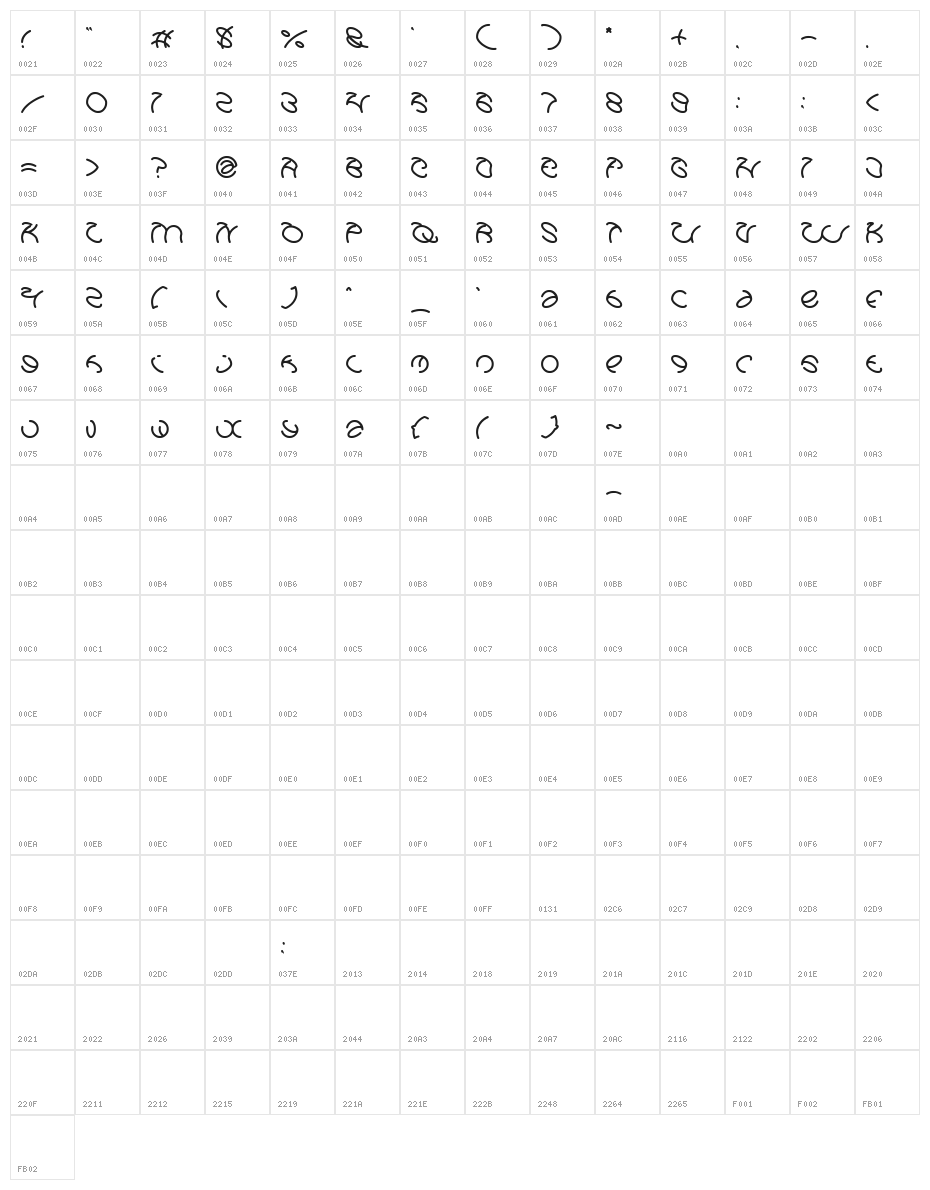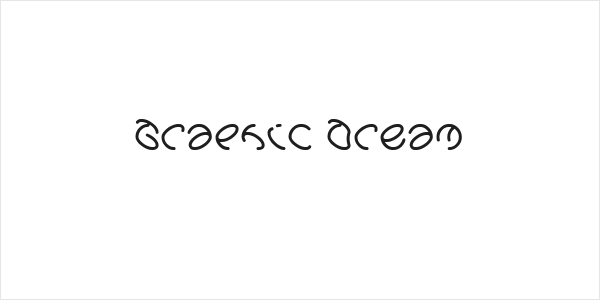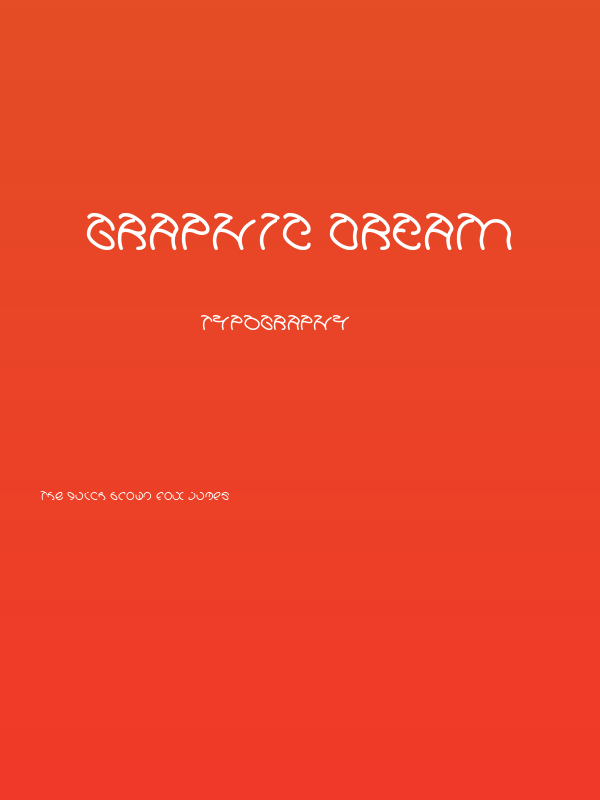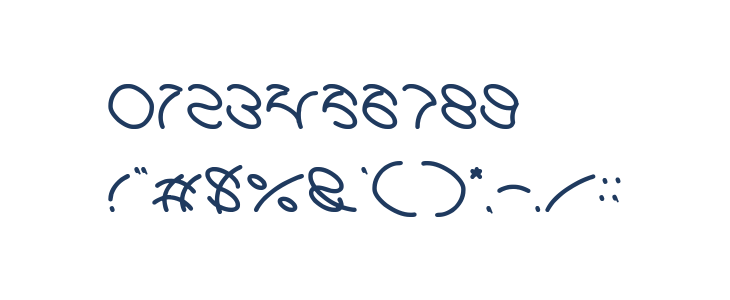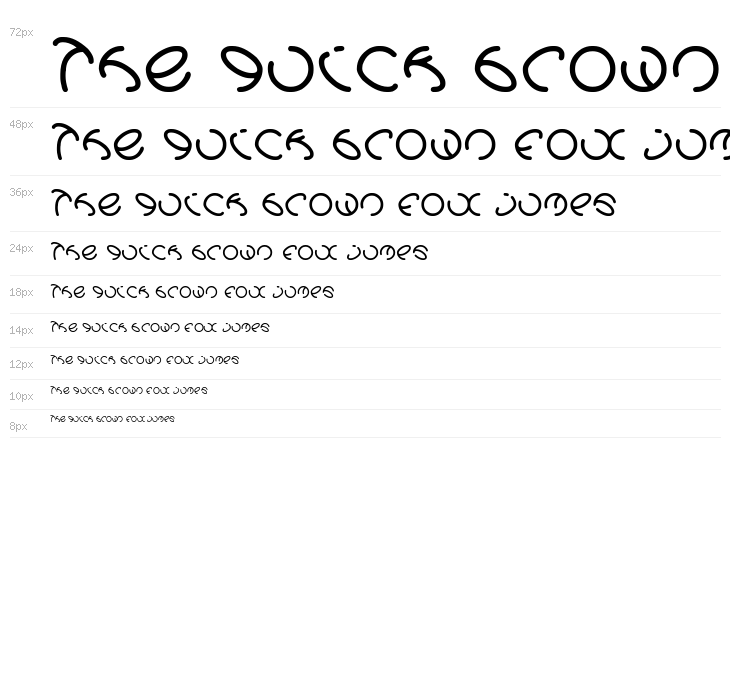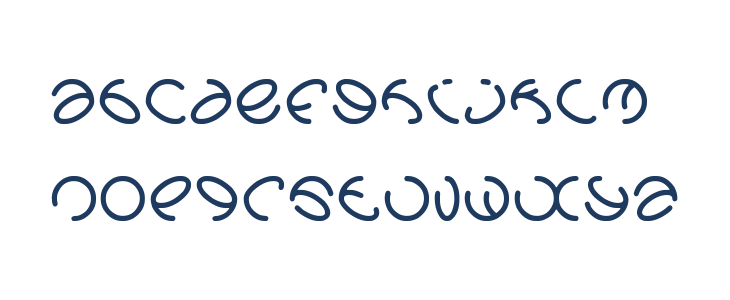
Graphic Dream Font
Graphic Dream Description
This font features a unique and artistic design, characterized by its flowing, curved lines and playful, abstract shapes. Each character is crafted with a sense of movement, giving the font a dynamic and whimsical appearance. The strokes are bold and consistent, creating a strong visual impact while maintaining a sense of elegance. The font's distinctive style makes it stand out, with each letterform exhibiting a creative twist that adds to its charm. The numbers and special characters follow the same design principles, ensuring a cohesive look across all elements. This font is ideal for projects that require a touch of creativity and individuality.
| Overall Style | Artistic |
| Use Case | Logos, Posters, Creative Branding |
| Proposed Projects | Ideal for creative projects such as posters, branding, and artistic invitations. |